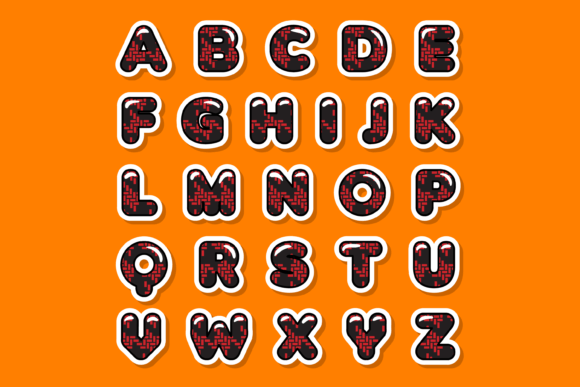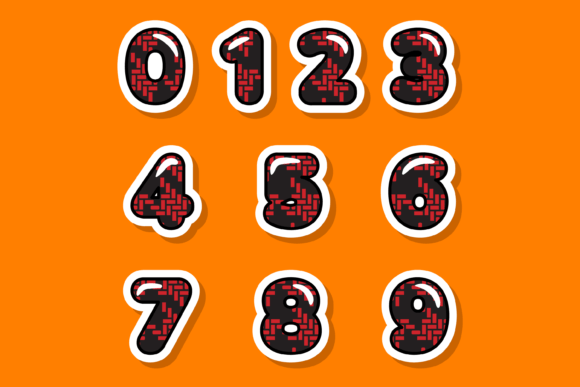
Discover the Playful Charm of Dogstooth Font: Elevate Your Designs with this Vibrant Color Font
Are you on the hunt for a font that adds a dash of fun and personality to your designs? Look no further than Dogstooth, an incredibly cool and fun color font that’s perfect for custom designs, DIY crafts, and any creative project that requires a lovely touch. In this article, we’ll dive into the world of Dogstooth Font, exploring its features, benefits, and uses, as well as provide valuable insights on how to make the most of this amazing font.
What is Dogstooth Font?
Dogstooth is a unique and vibrant color font that belongs to the Opentype-SVG font family. This means it’s not just a standard font, but a dynamic, multi-colored font that can add an extra layer of visual interest to your designs. With Dogstooth, you can create stunning text-based designs that pop with color and personality.
Key Features of Dogstooth Font
- Color Font: Dogstooth is a color font, which means it can display multiple colors in a single font file, eliminating the need to manually change colors or use multiple font files.
Benefits of Using Dogstooth Font
So, why choose Dogstooth Font for your design projects? Here are just a few benefits:
- Adds Personality: Dogstooth Font adds a playful and fun touch to your designs, making them stand out from the crowd.
- Saves Time: With Dogstooth, you can create stunning color designs without the need for manual color changes or multiple font files.
- Versatile: Dogstooth Font is perfect for a range of design projects, from custom designs and DIY crafts to signs, posters, and more.
Creative Uses for Dogstooth Font
So, what can you create with Dogstooth Font? The possibilities are endless! Here are a few ideas to get you started:
- Custom Designs: Use Dogstooth Font to create stunning custom designs for your business, event, or personal project.
- DIY Crafts: Add a personal touch to your DIY crafts, such as signs, cards, and gift tags.
- Signs and Posters: Create eye-catching signs and posters for your business, event, or social media campaign.
- Social Media Graphics: Use Dogstooth Font to create engaging social media graphics that stand out from the crowd.
| Font Name | Dogstooth Font |
| Author | JUSTTYPE |